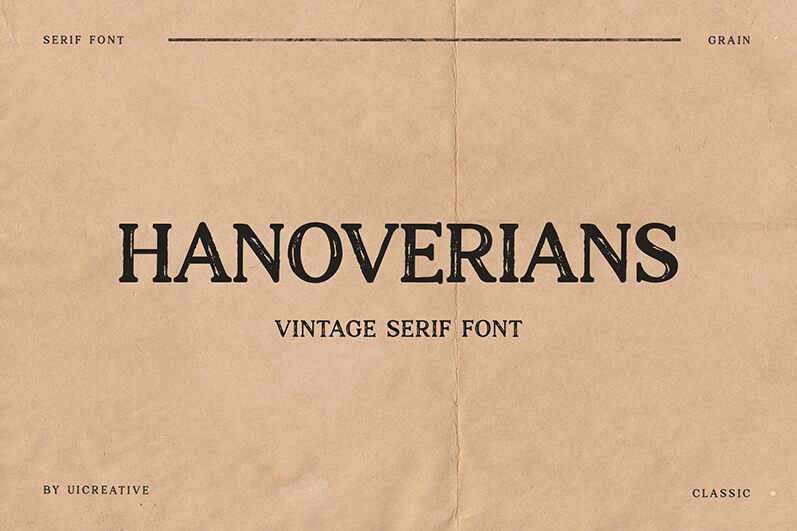
Hanoverians
Hanoverians font, designed by UI Creative, is a free display font with an eroded style. It features a textured and distressed look with vintage-inspired vibes. The font holds a robust appearance and has historical reference potential. It gives out authoritative impressions as well.
A beautiful alternative to serif fonts on certain occasions, this one would be handy for logos, product labels, packaging design, business cards, invitation cards (especially wedding or similar events), in-store signage, window displays for stores and restaurants. It’s also great for posters (sports events for example), some social media posts – especially vintage-themed ones – and more!